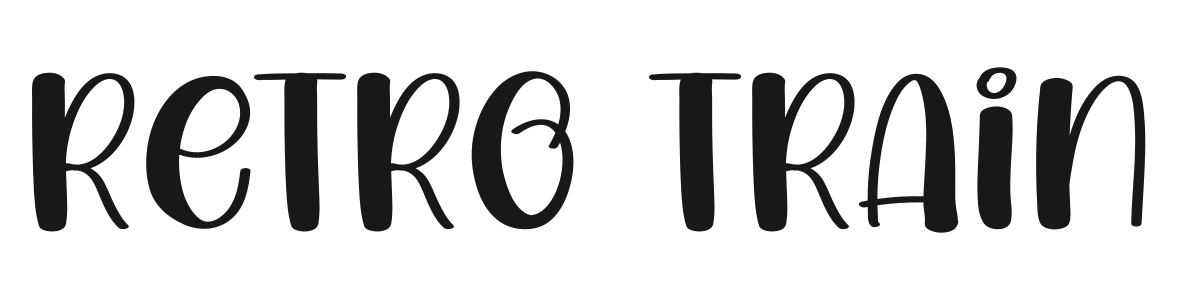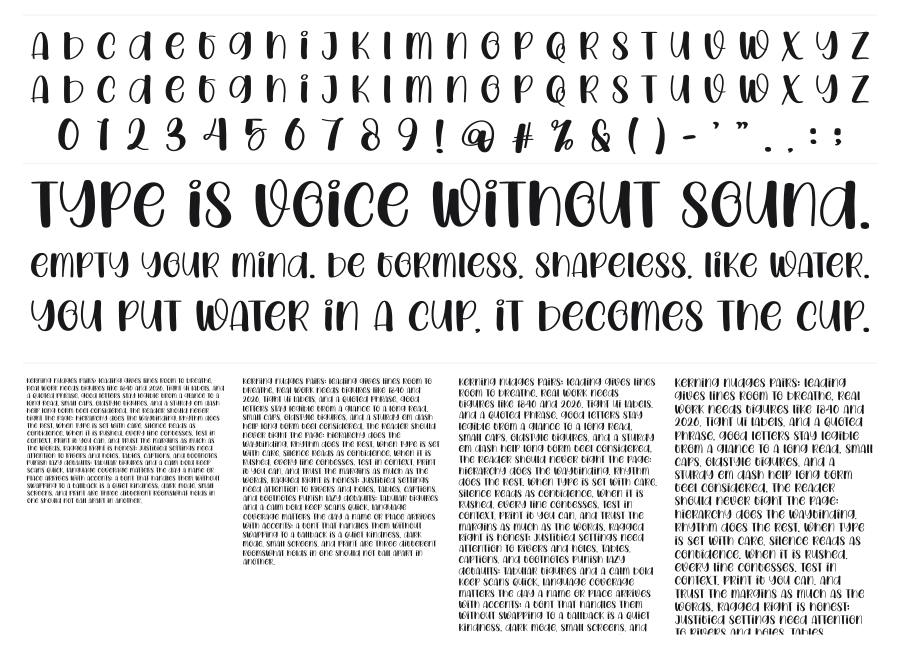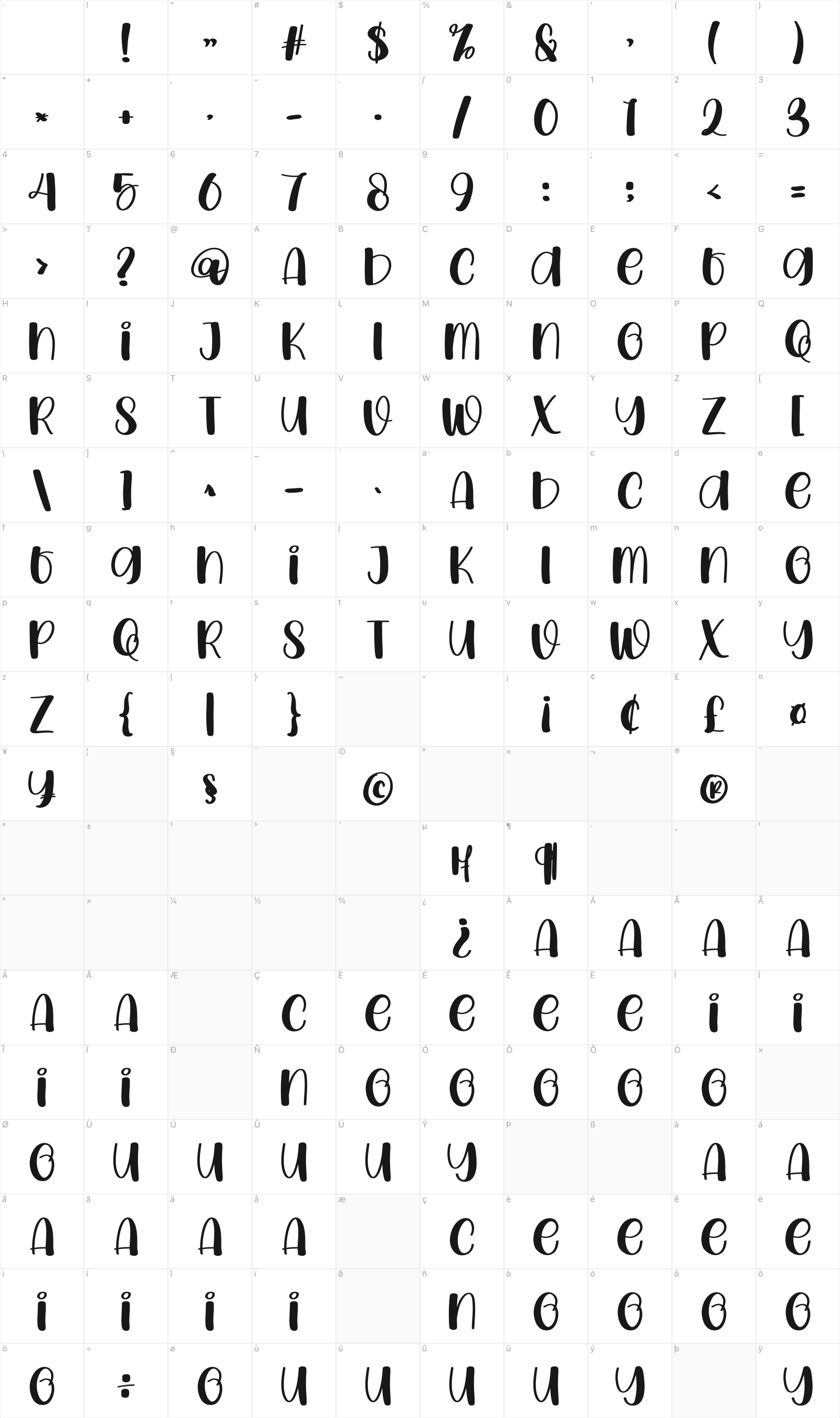
Retro Train
Retro Train is an upright casual script that blends calligraphic construction with a playful, bouncy rhythm. Alternating cap heights between tall narrow forms and rounder companions create a lively hand-lettered feel without feeling chaotic. It works naturally for branding, stationery, and any headline that needs warmth and personality.